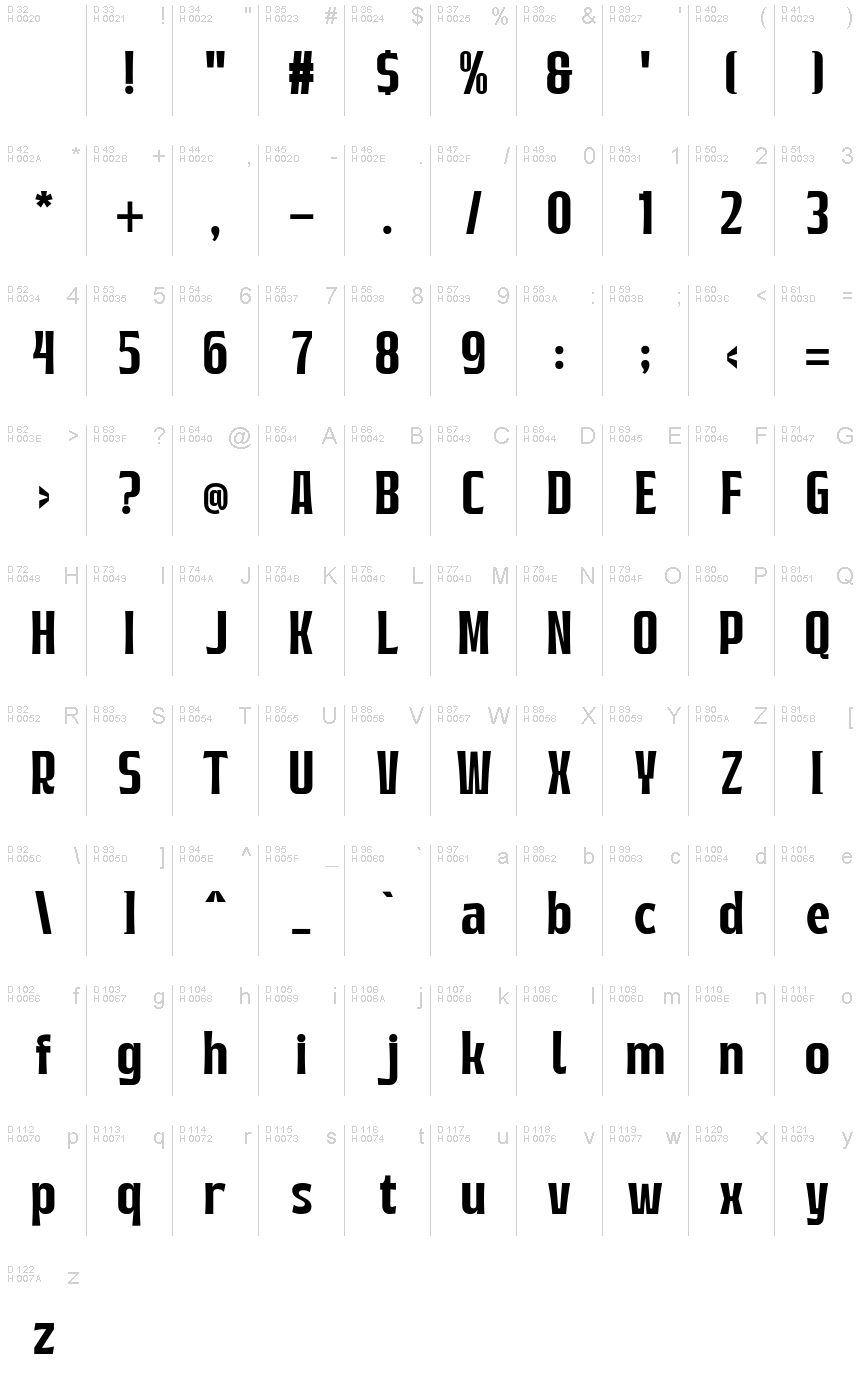
Frosh Demo Medium
Frosh Medium, crafted by TypeClassHeroes, stands out with its sleek and modern sans serif design. Characterized by a striking condensed width, this font exudes sophistication and clarity.
The well-balanced letter shapes ensure legibility while adding a touch of flair to any text. Its distinct fusion of clean lines and contemporary aesthetics makes Frosh Medium ideal for headlines that demand attention, branding projects that seek elegance, and digital platforms where clear communication is paramount.
Embrace the versatility of Frosh Medium for stylish posters, impactful logos, or modern web designs—it effortlessly adapts to various contexts while maintaining its unique charm.